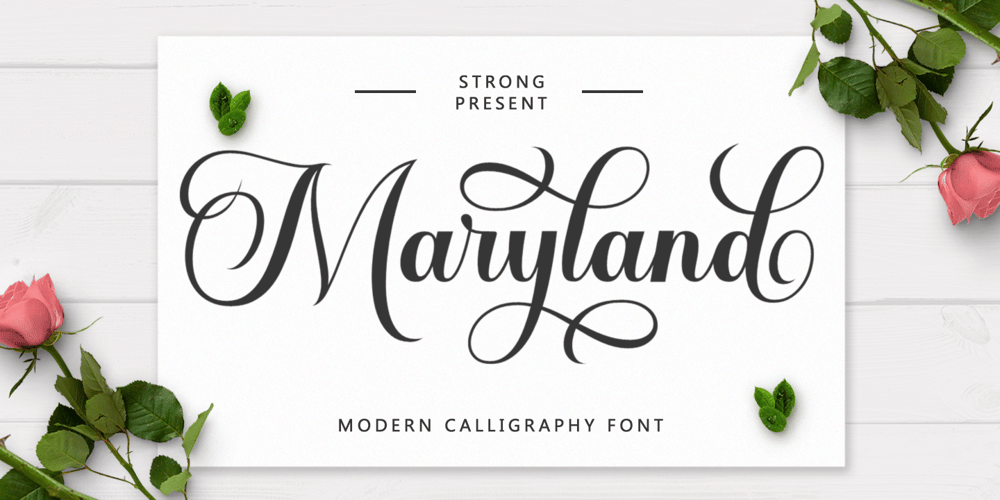
Maryland Script
Maryland Script font
Maryland Script Font Family was designed by Nanda Putra Sukmayadi and published by Strong. Maryland Script contains 1 styles and family package options. Maryland Script a fresh & modern new script with a handcrafted calligraphy style, decorative characters and dancing baseline! Very pretty for invitations such as greeting cards, branding materials, business cards, quotes, posters and more!!Maryland Script comes with 550 glyphs. Alternative characters are divided into several Open Type features such as Swash, Stylistic Sets, Stylistic Alternate, Contextual Alternate. The Open Type feature can be accessed using Open Type savvy programs such as Adobe Illustrator, Adobe InDesign, Adobe Photoshop version of Corel Draw X, and Microsoft Word. And this Font has provided PUA unicode (custom coded font). so that all alternative characters can be easily accessed in full by a craftsman or designer.Maryland Script: Uppercase & Lowercase Letters International Languages ​​& Symbols Support Punctuation & PUA Numbers Unicode Range Standard Alternative StyleIf you don’t have a program that supports OpenType features such as Adobe Illustrator and CorelDraw X Versions, you can access all the alternative glyphs using Font Book (Mac) or Character Map (Windows).thank you